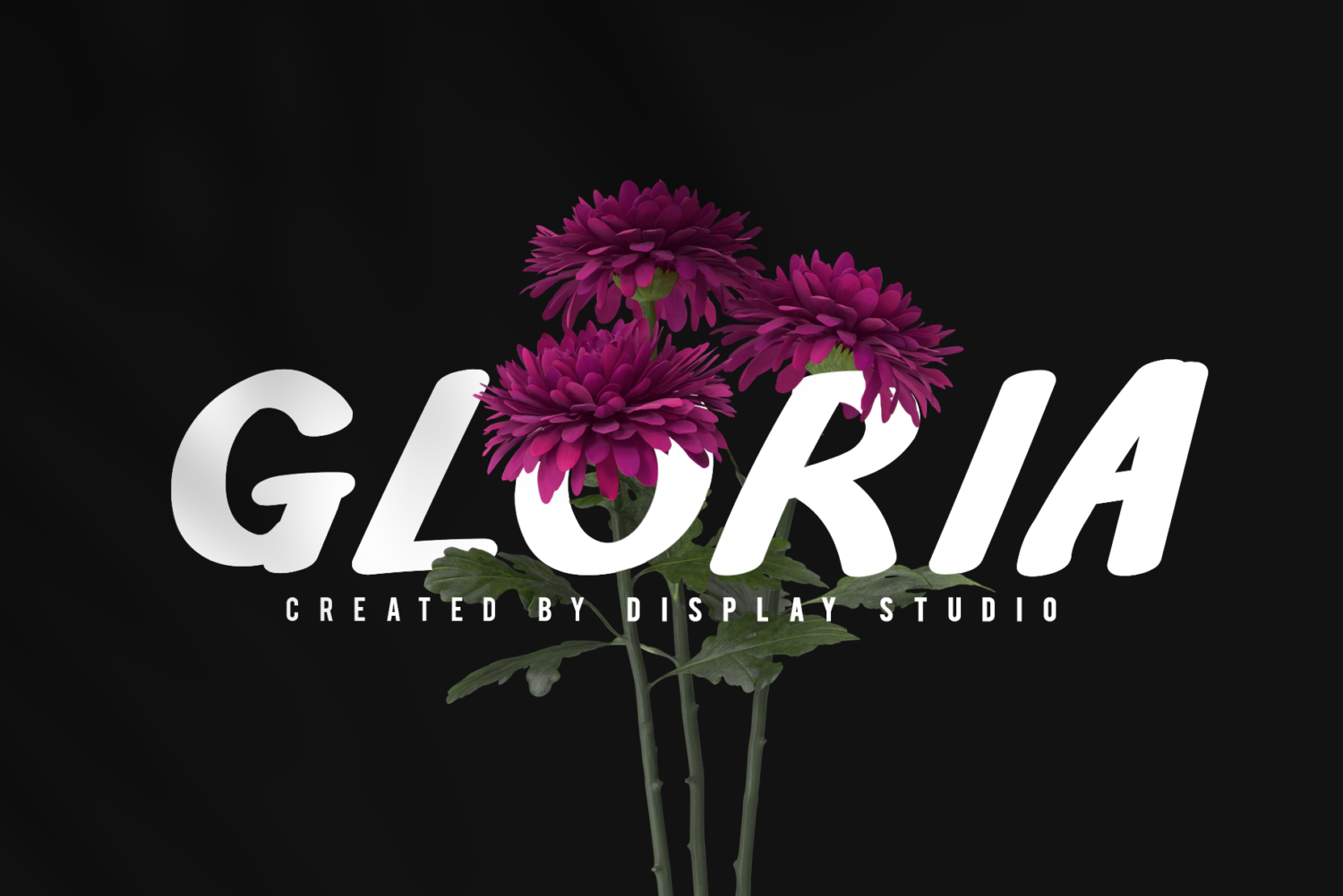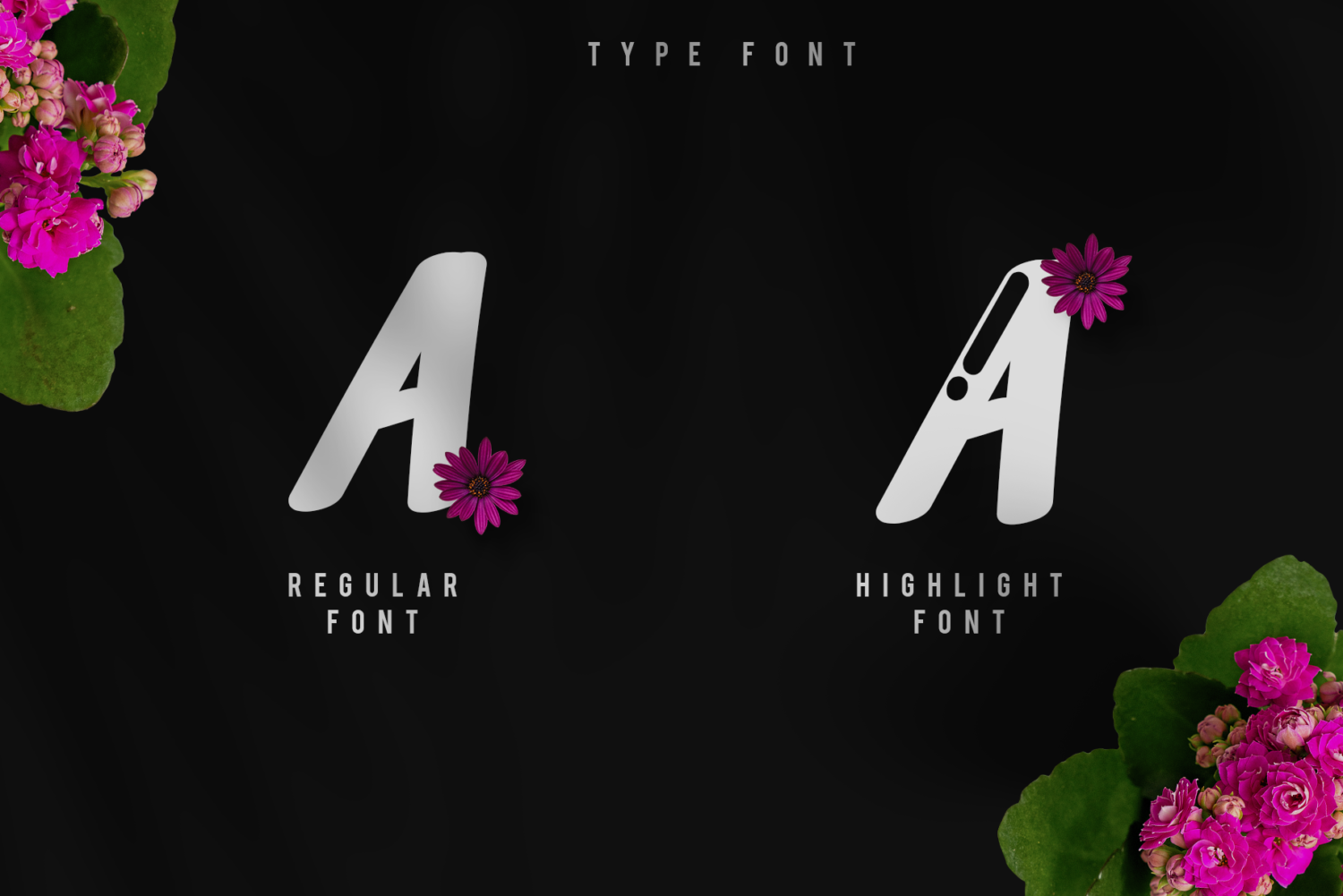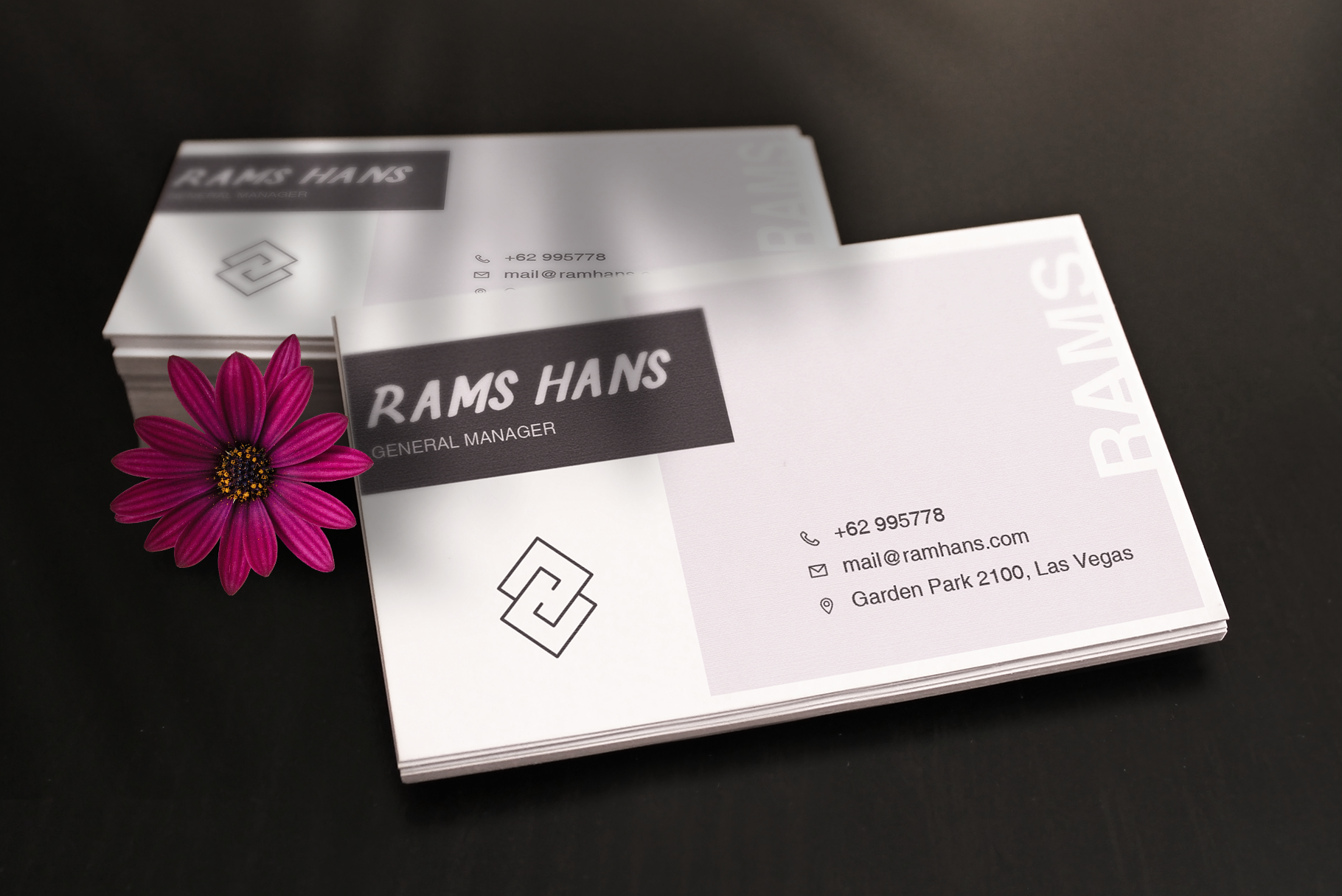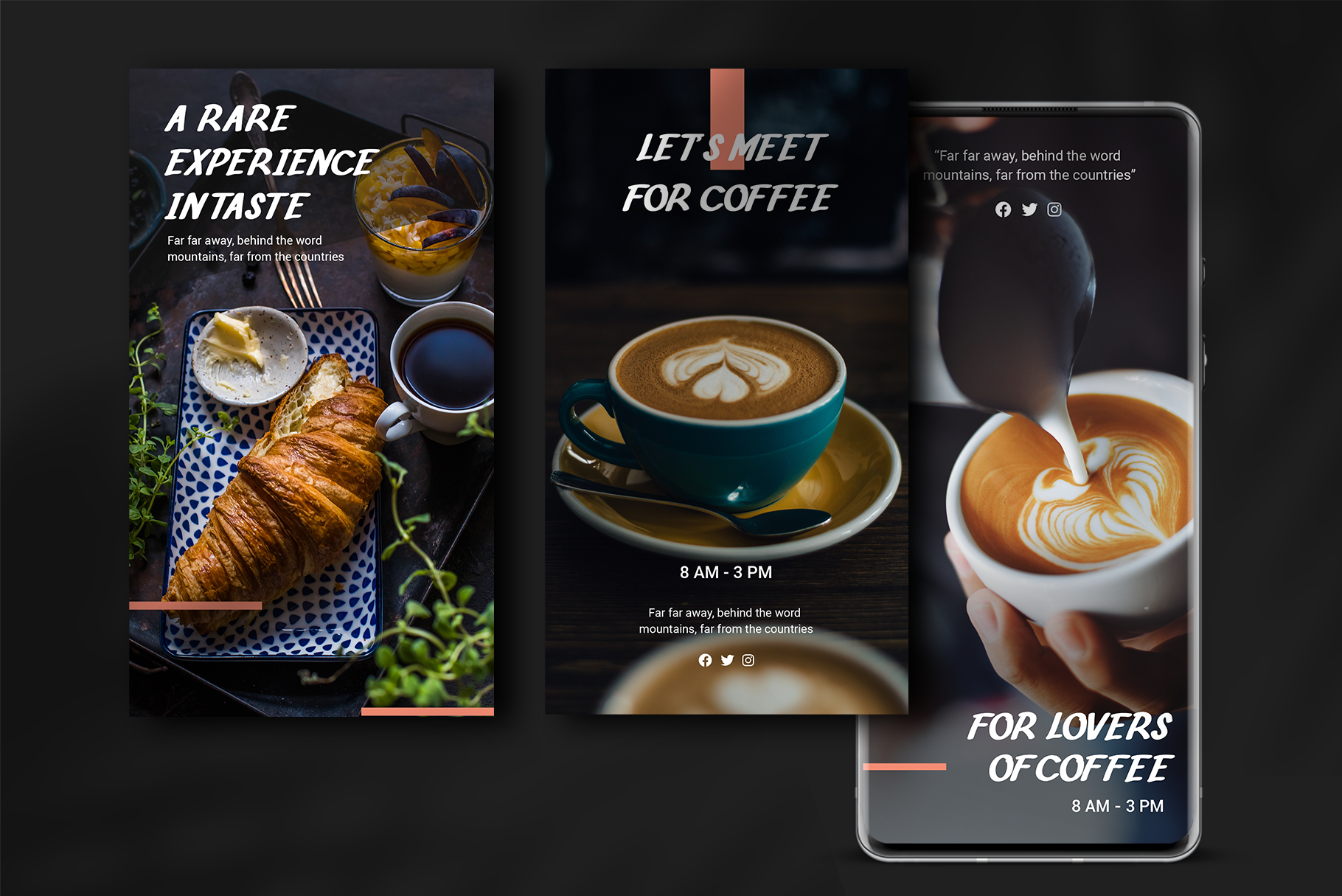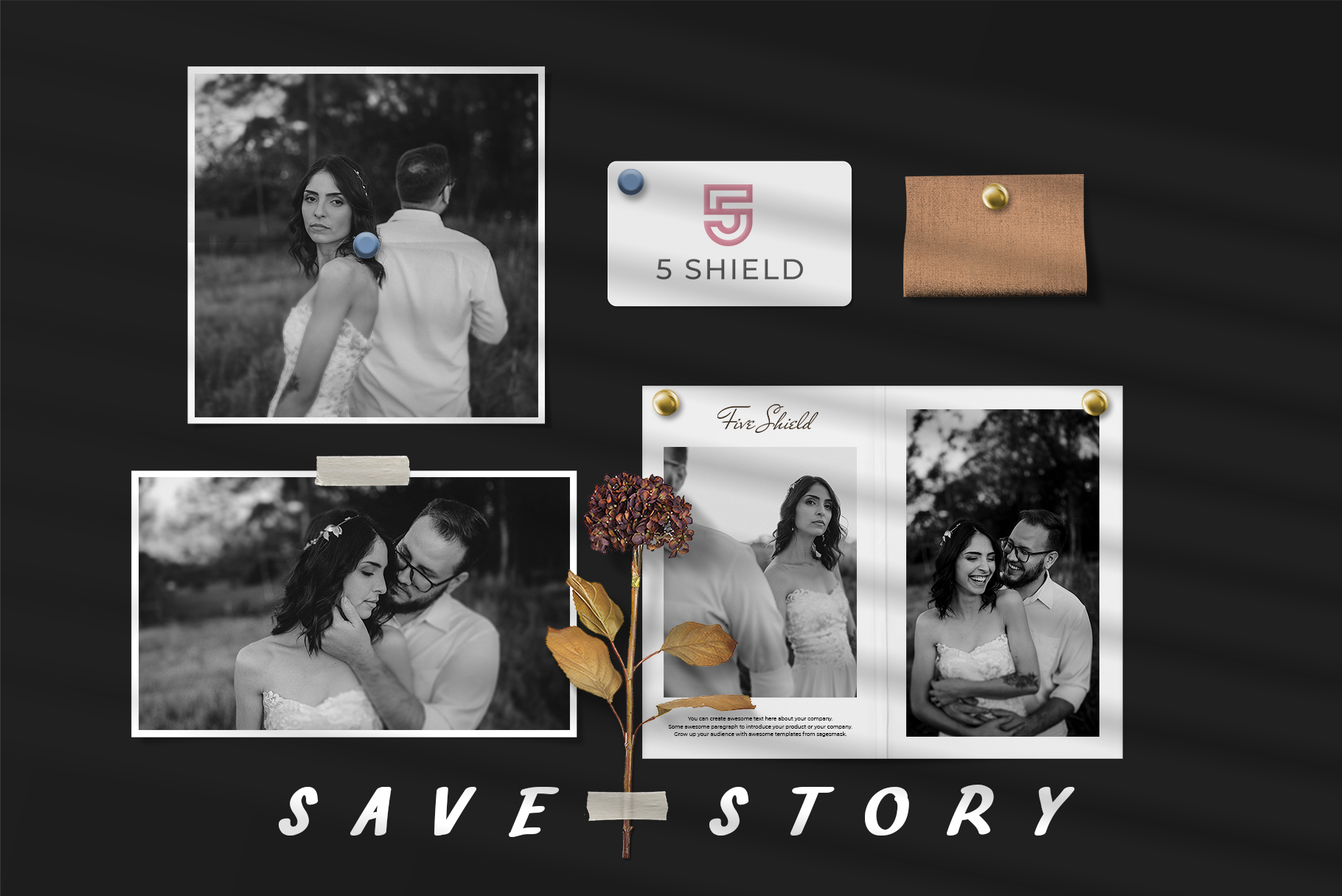
Gloria Free Font
Gloria Free Font is perfect for brand logo, invitations, greeting cards, or even any kind of project. With multilingual feature and style variations, this typeface would further enhance the aesthetic aspect of your work. This free typeface was designed by a talented Display Studio. If you like it don’t forget to check out the full version.